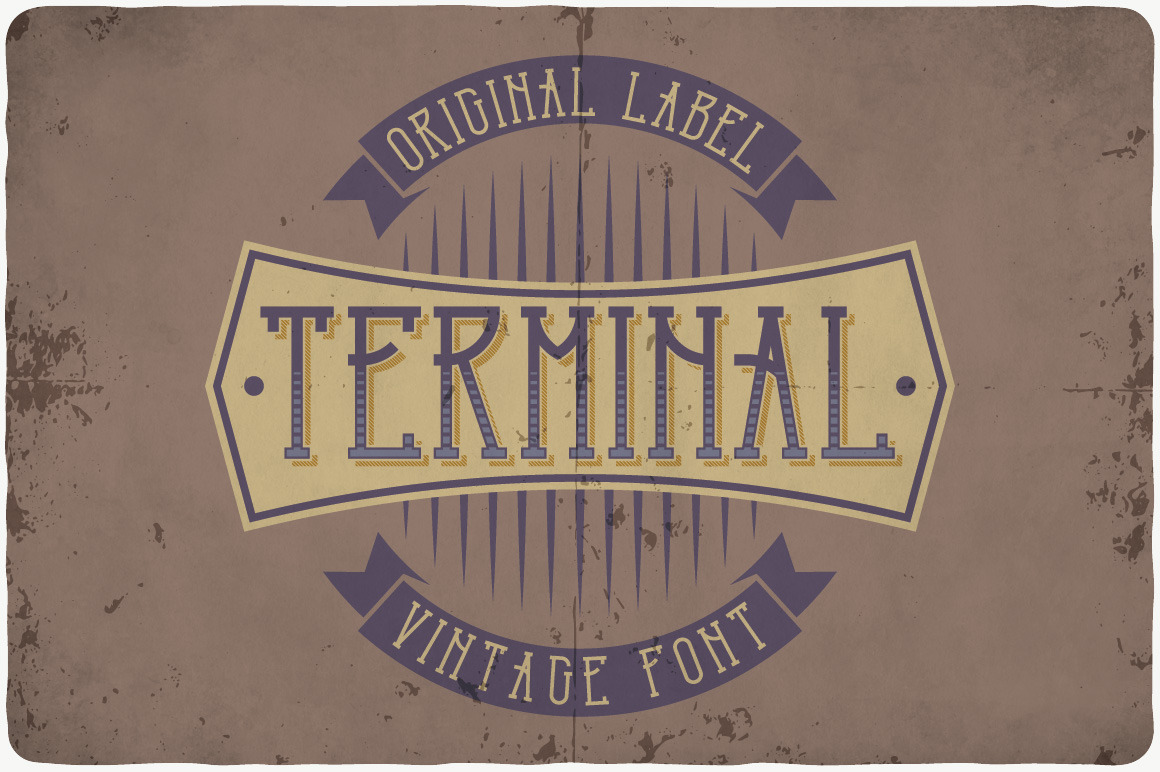
Terminal typeface
Introducing a vintage look label typeface named "Terminal". This typeface includes four styles, for sample look at 5th preview. Typeface will good viewed on any yours design.